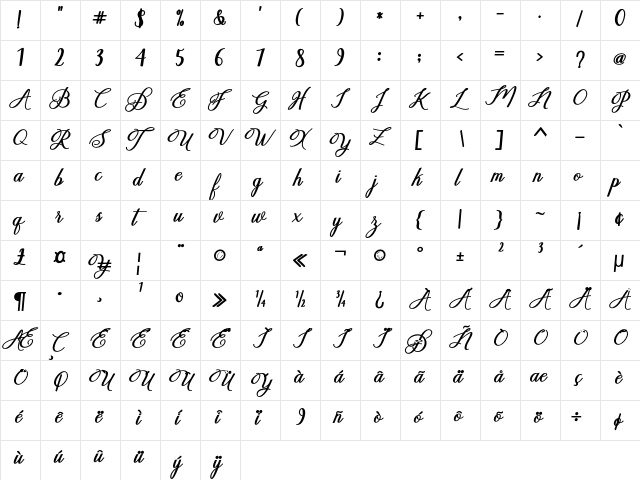
delightful script
| Style | script |
| Foundry | mrletters_Muhammad Rizal |
| Designer | mrletters_Muhammad Rizal |
Design Context for delightful Typeface
delightful flows with the natural rhythm of handwritten lettering, making it ideal for designs that call for warmth and personal expression. The delicate stroke weight brings airiness and refinement to layouts.
Font Pairing: Combine delightful with a simple geometric sans for maximum contrast — the tension between flowing curves and clean structure is a classic typographic pairing.
Pro Tip: Pair delightful with a clean sans-serif for supporting text. The contrast between fluid script and geometric structure creates an elegant typographic hierarchy.